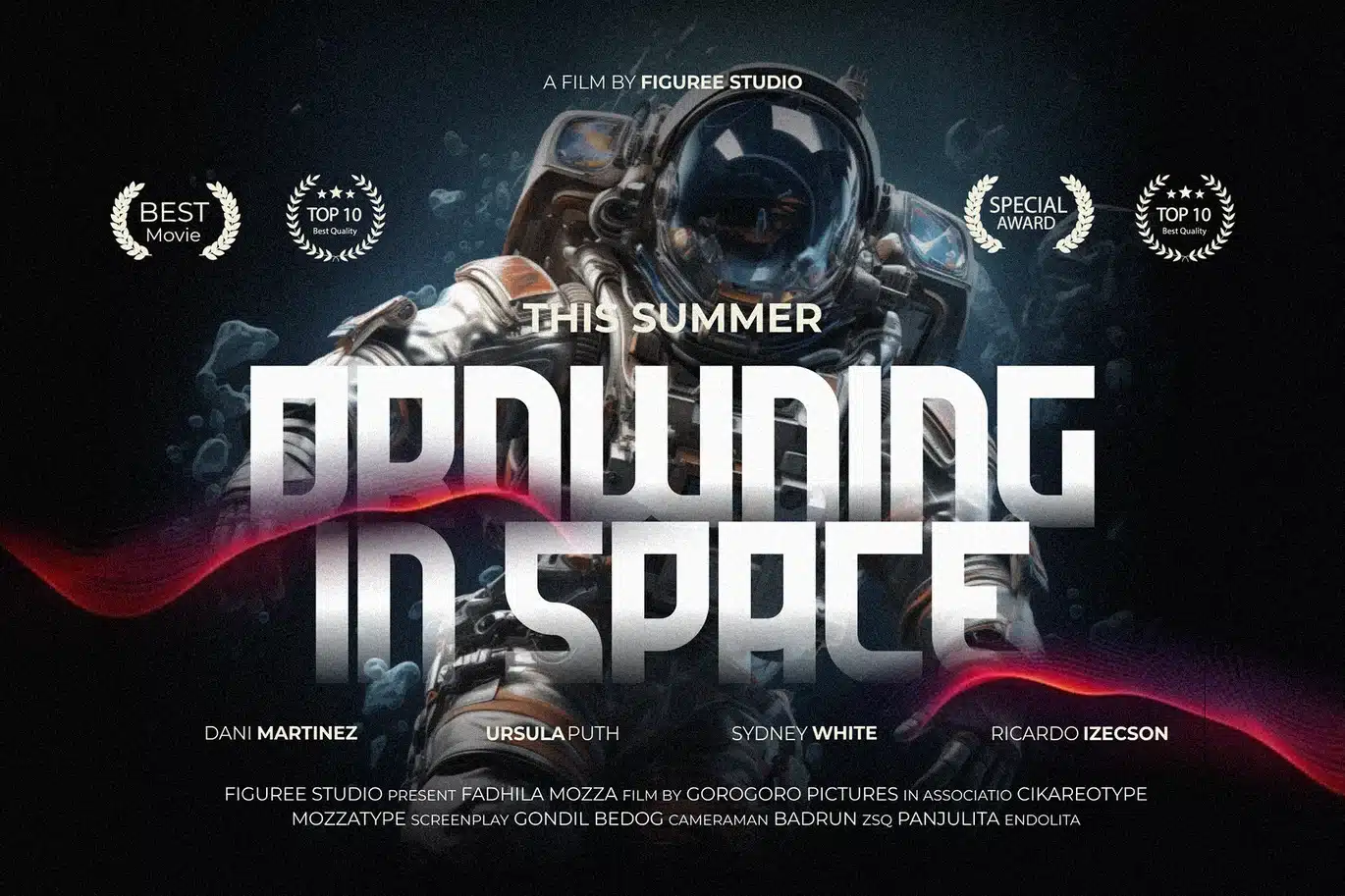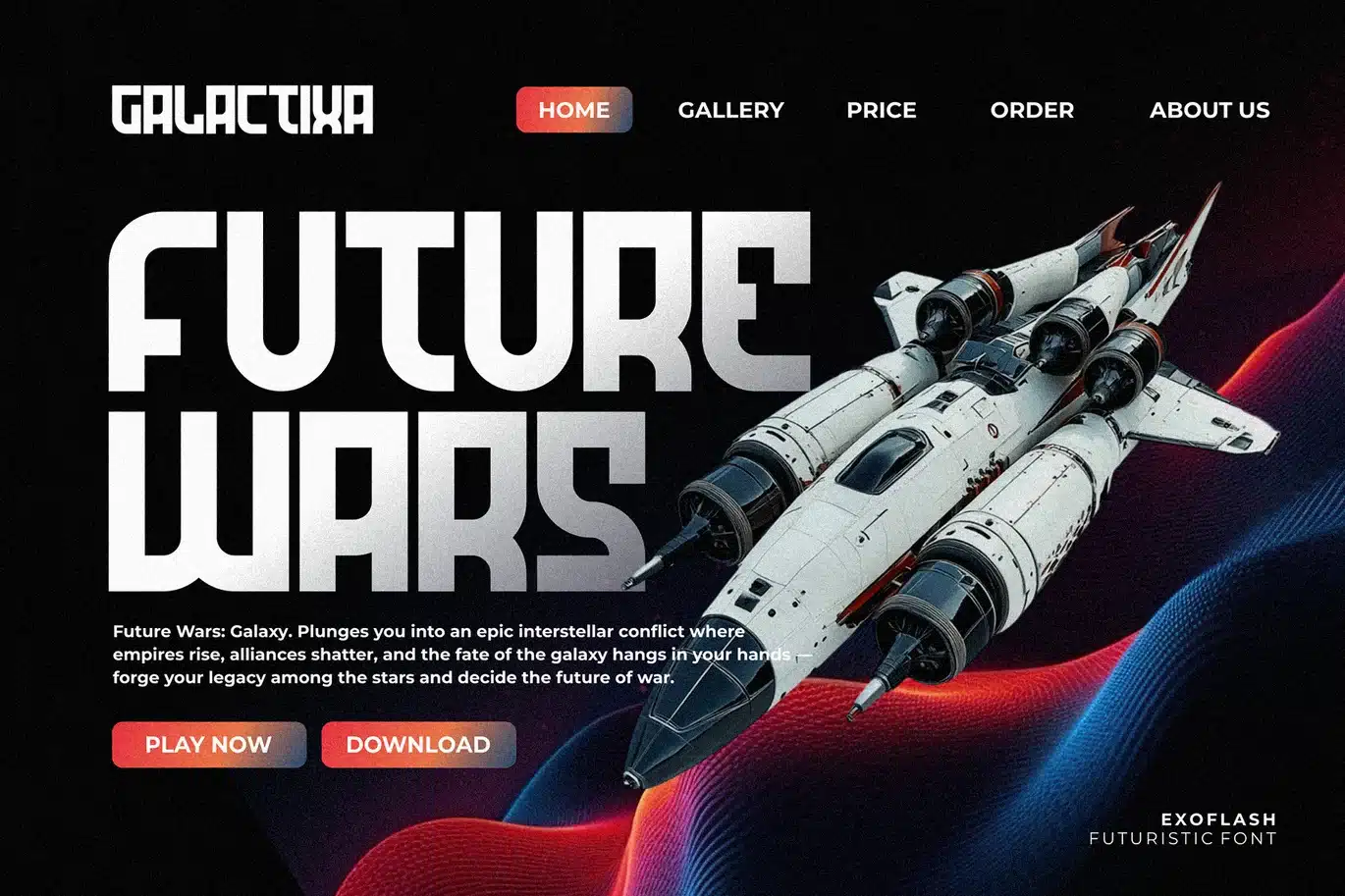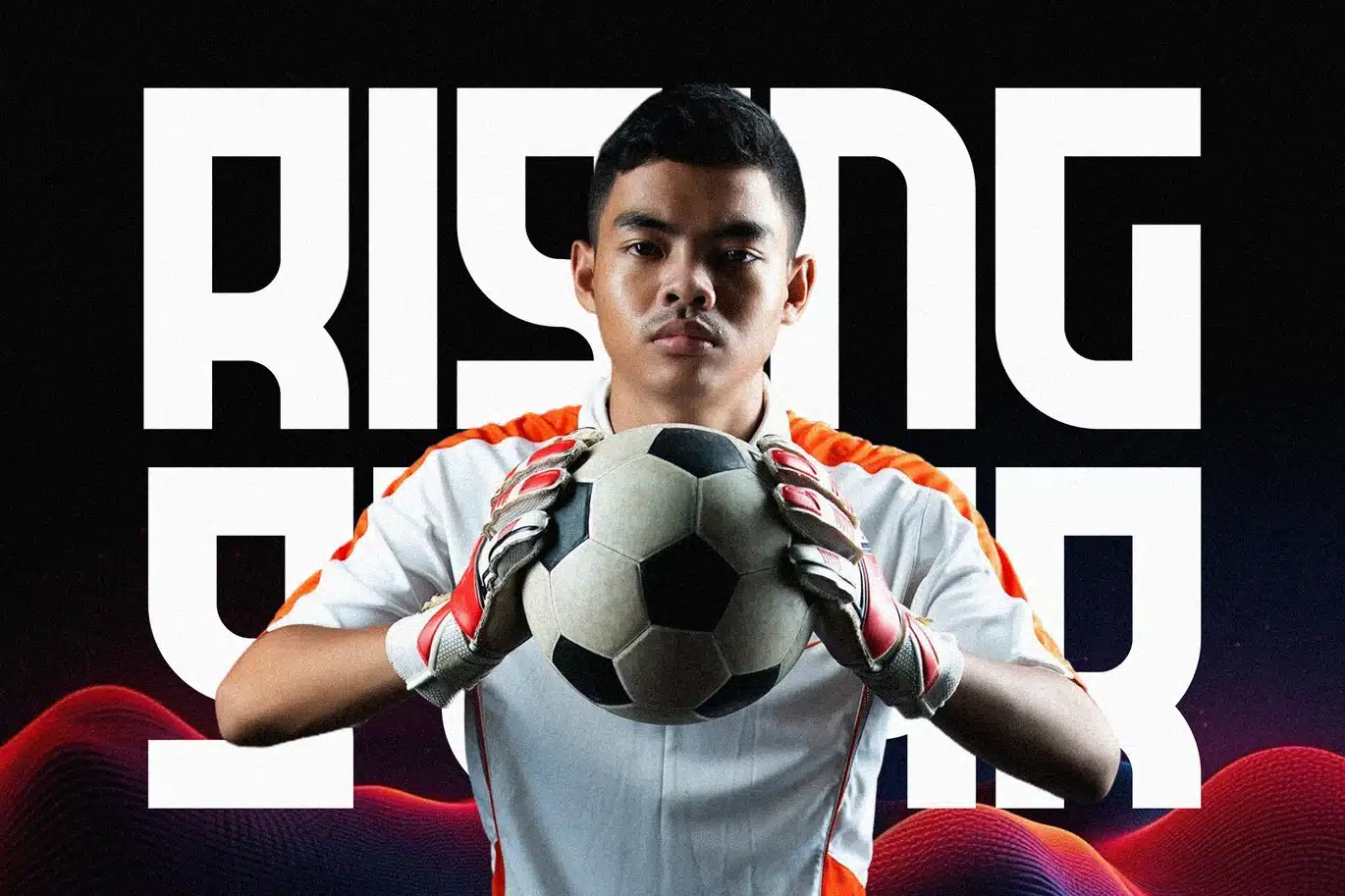
Exoflash – Futuristic Logo Font
Exoflash is a sleek and electrifying typeface built for the digital frontier. Combining razor-sharp lines with sci-fi-inspired curves, this display font injects next-gen energy into any project. Whether you're crafting bold logos, cinematic titles, or cutting-edge branding, Exoflash delivers power and precision in every character. With both regular and italic styles, plus alternates and ligatures, it’s designed for creators who think beyond tomorrow.
✦ Features:
- Uppercase & Lowercase Letters: Bold, geometric shapes with futuristic elegance.
- Stylish Ligatures: Custom letter pairs for a seamless sci-fi flow.
- Regular & Italic Styles: Choose between stability or slanted speed.
- Number Alternates: Fresh numeric designs with an avant-garde twist.
✦ Why Designers Love It:
- Perfect for tech branding, esports, and sci-fi movie titles.
- Makes logos look modern, memorable, and high-impact.
Exoflash isn’t just a font—it’s a launchpad for bold ideas. Channel the pulse of the future and make your designs stand out with intergalactic confidence.